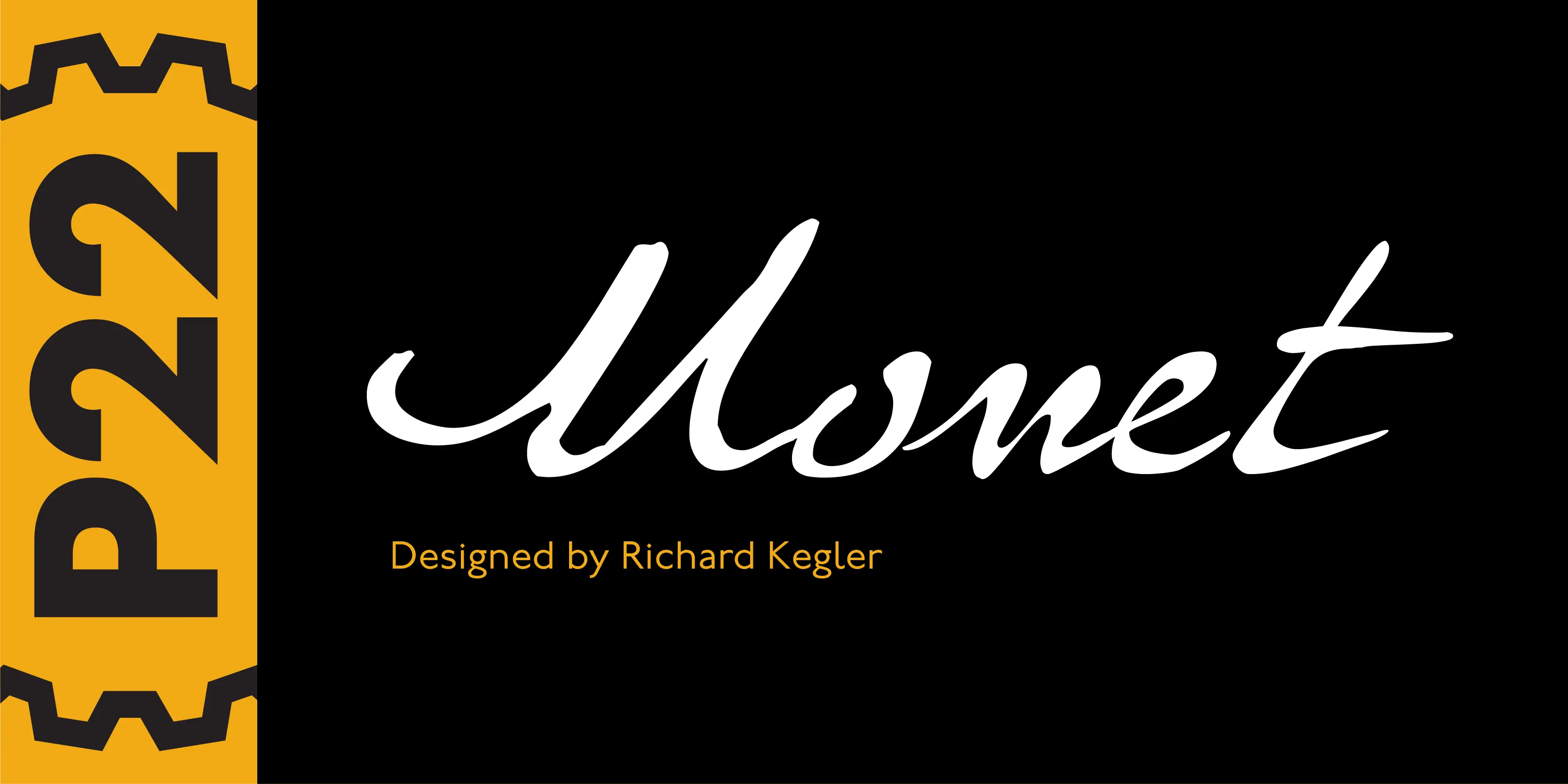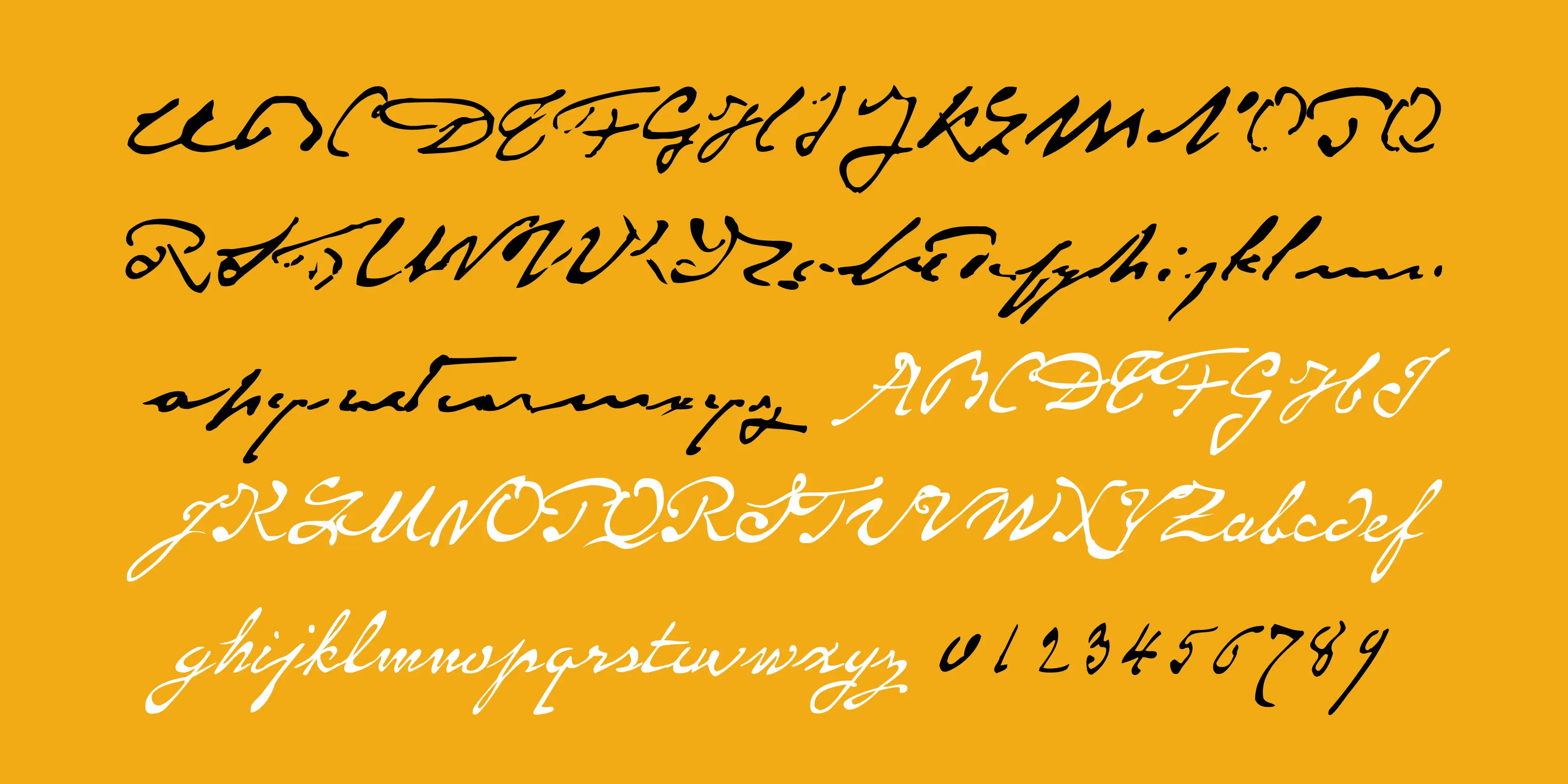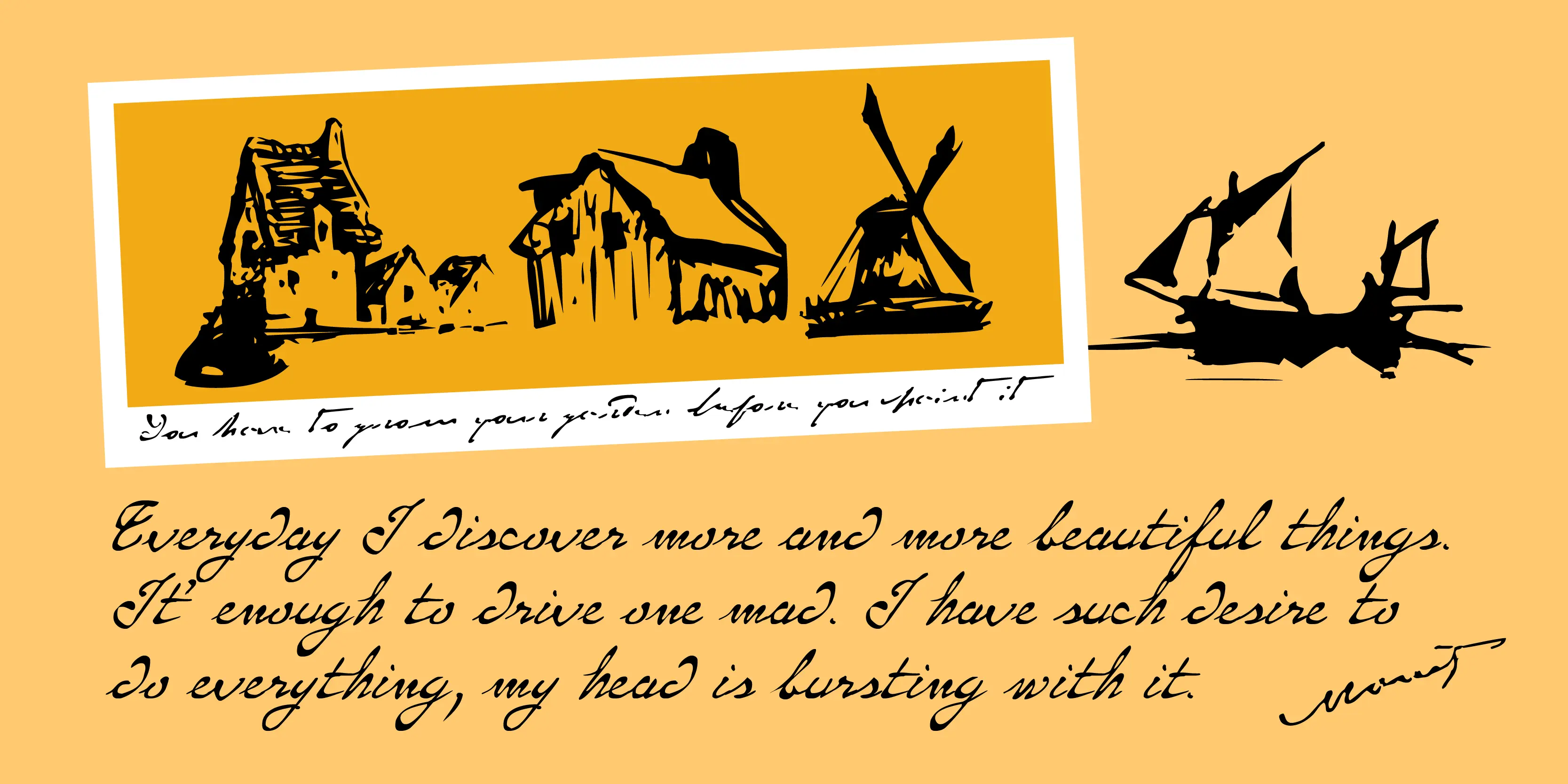
Monet Fonts
Monet Impressionist
Monet Regular
Monet Sketches
Monet
This font set was developed for the Albright-Knox Art Gallery and their 1999 Monet exhibition, Monet at Giverny: Masterpieces from the Muse Marmattan. Monet Regular is a fairly straightforward script font with an undulating thick and thin stroke. Monet Impressionist is a semi-legible script which can be used for decorative rather than communicative purposes. Monet Sketches features 26 icons related to Monet’s imagery.